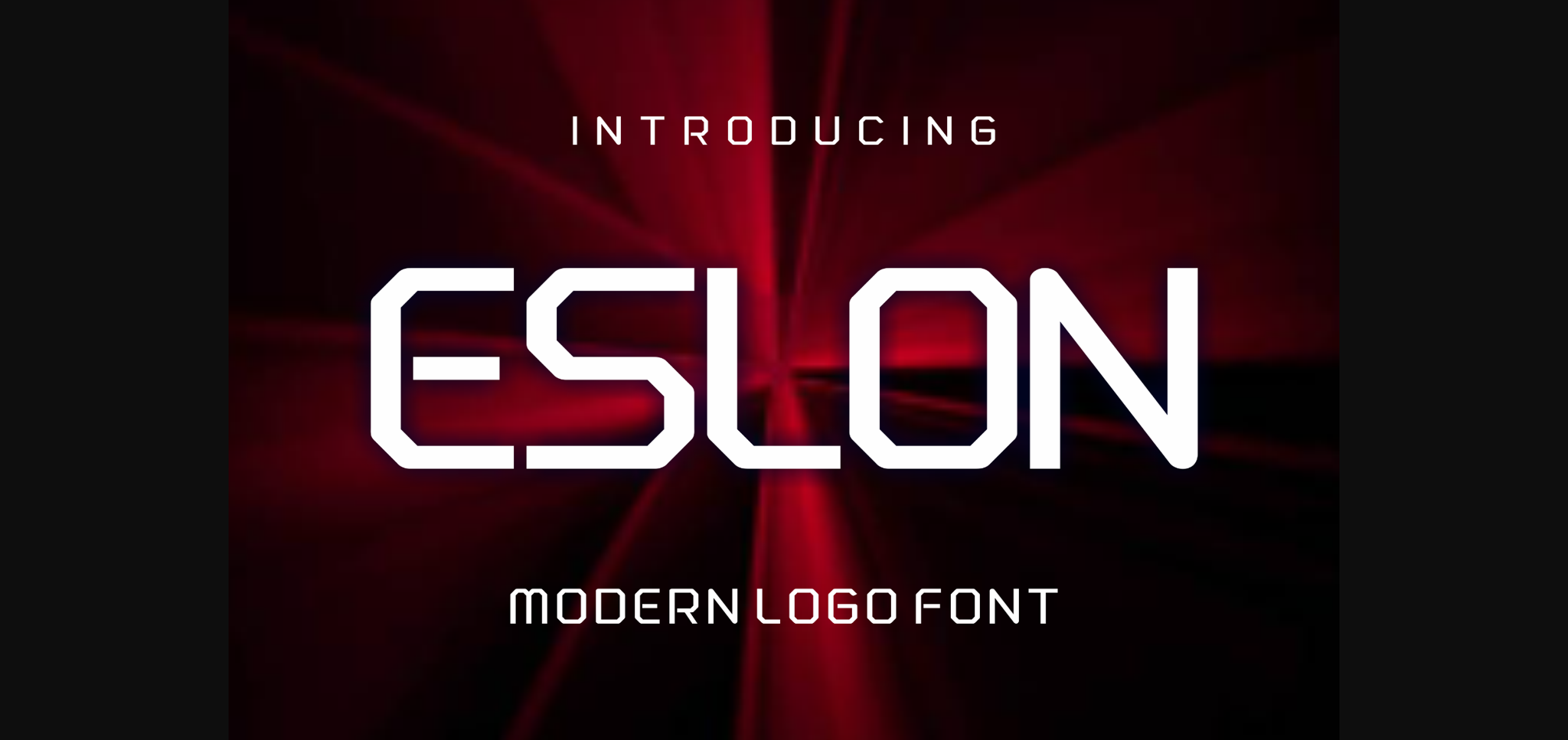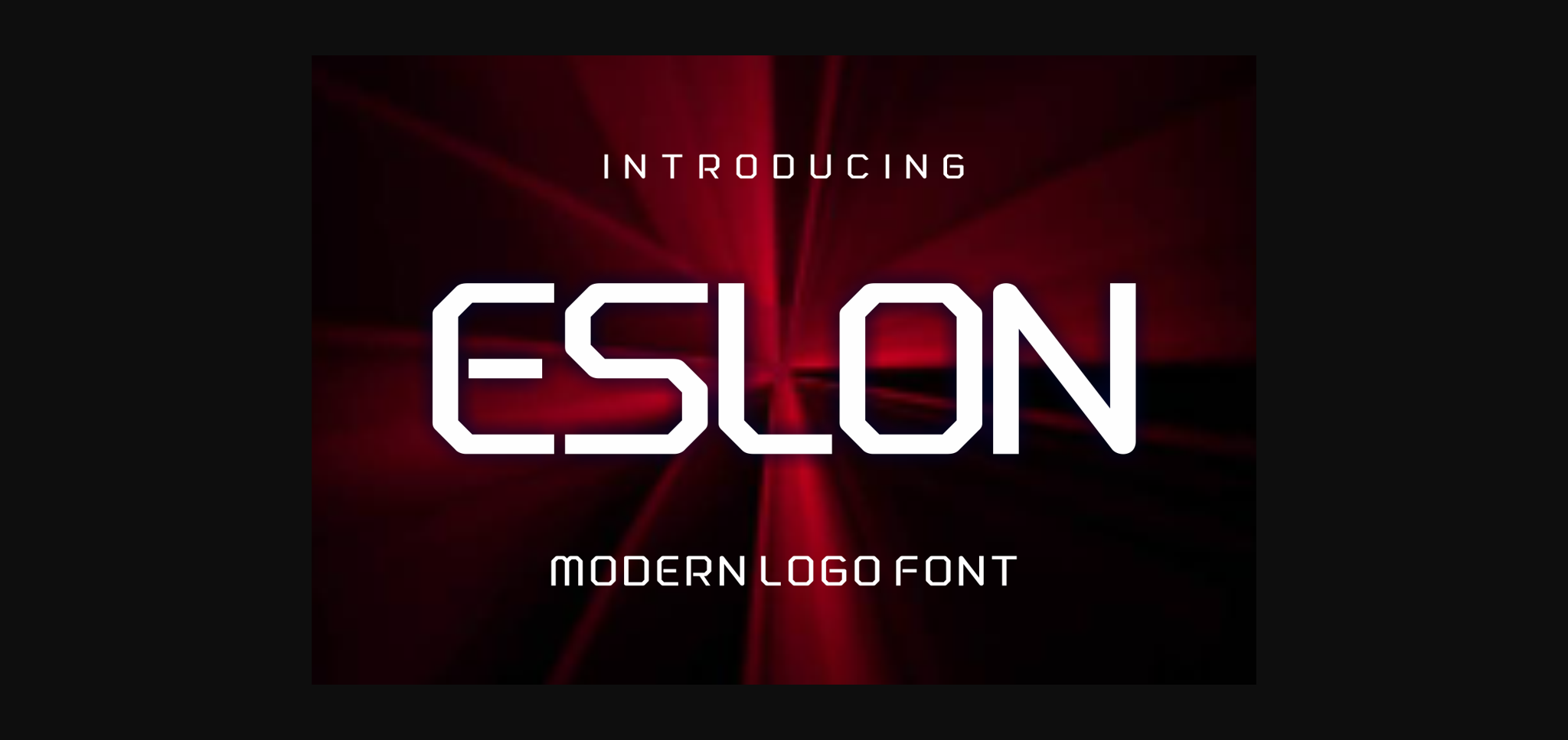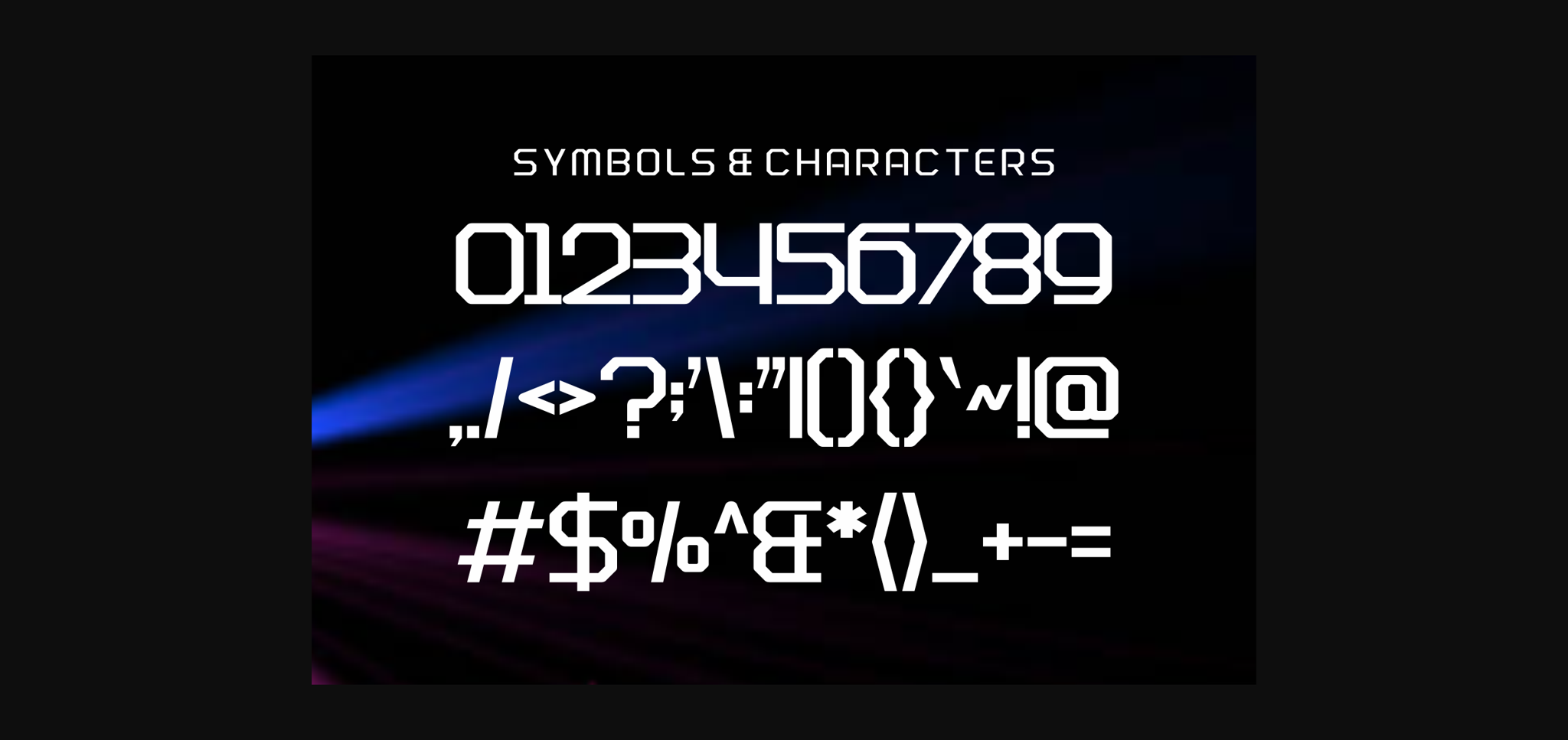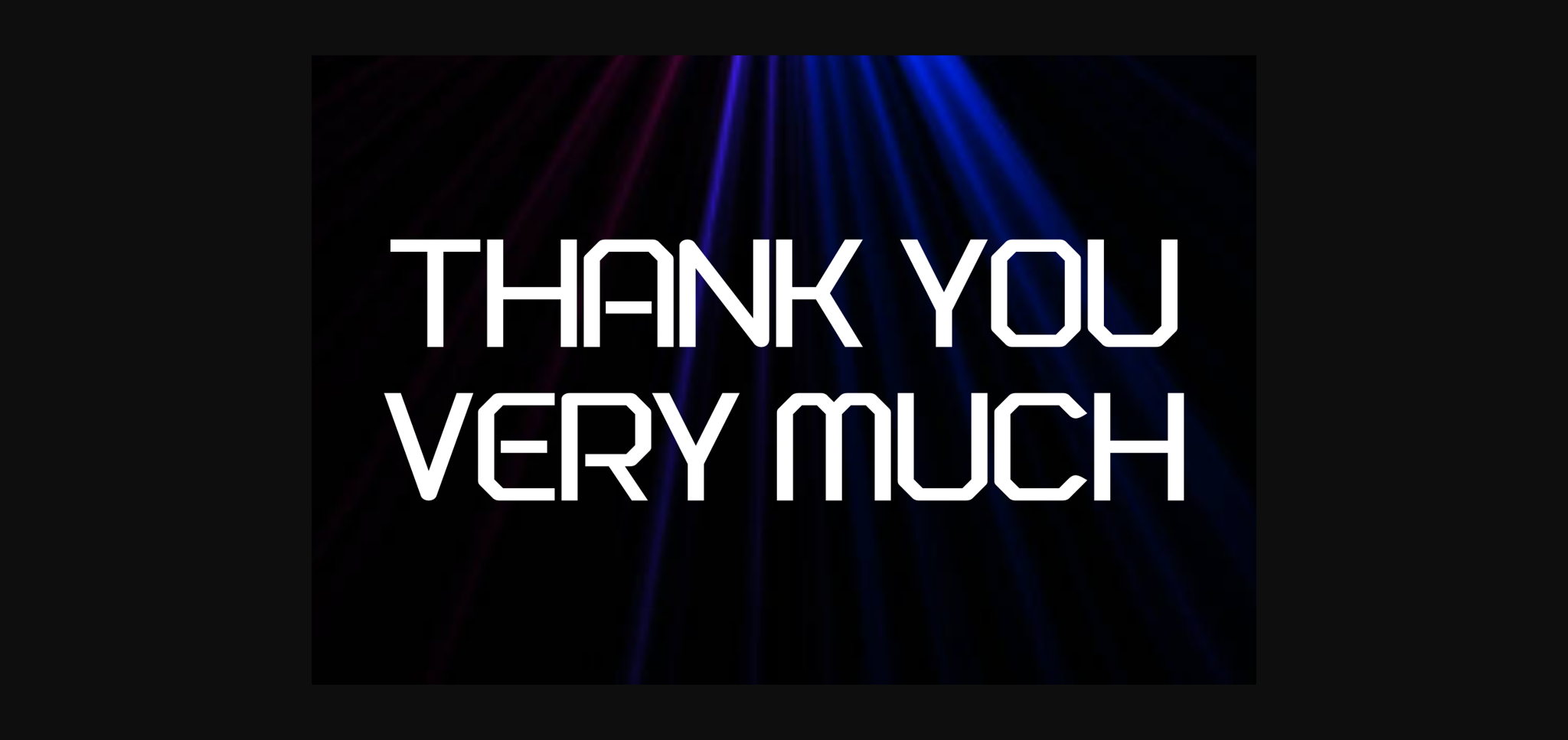
About Eslon Font
Elson is an incredibly unique display font. Masterfully designed to become a true favorite, this font has the potential to bring each of your creative ideas to the highest level! Perfectly suited on print/screen. It’s perfect for Branding, name card, poster, logo, magazine, cover, banner, t-shirt and headers, or even large-scale artwork.